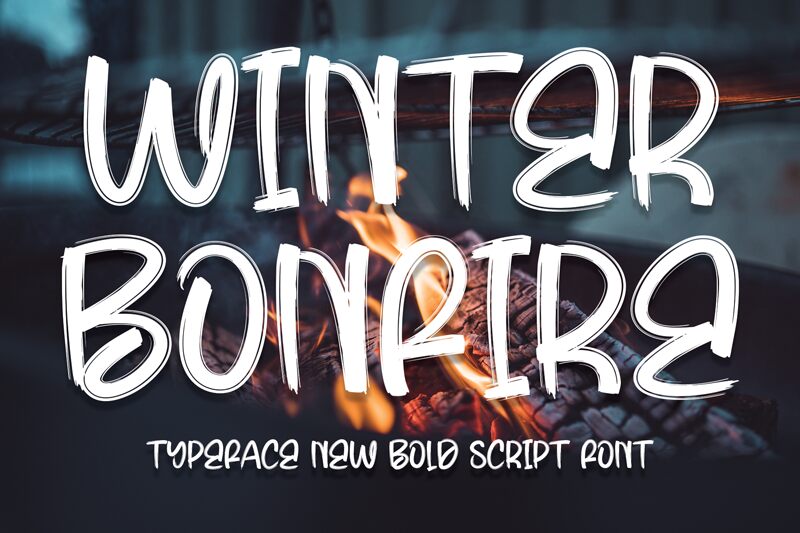
Winter Bonfire
Winter Bonfire, a creation by Scratchones, stands out with its semi-light brush style that evokes the spontaneity and warmth of a flickering flame. The font's handcrafted aesthetic pairs perfectly with projects that demand a personal touch, and its flowing, energetic strokes suggest movement and natural elegance.
The visual charm of Winter Bonfire lies in its balance between legibility and artistry. Each letter is designed with an organic feel, reminiscent of ink smoothly dragged across a canvas with a well-worn brush. This font has the potential to enhance various design applications such as event invitations, logo design, packaging labels, or any creative endeavor looking for that humanistic flair.
Its suitability extends to digital media as well, where Winter Bonfire can bring a sense of individuality to web graphics or social media posts. Whether you're crafting messages that resonate warmth during the colder seasons or seeking an expressive typeface year-round, Winter Bonfire adds an inviting atmosphere to your words.